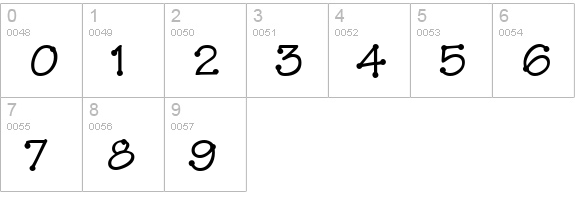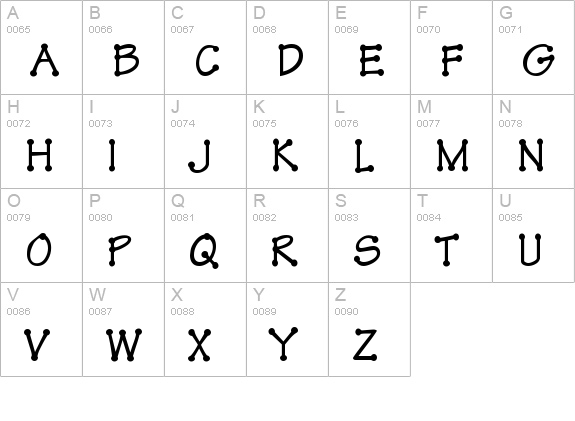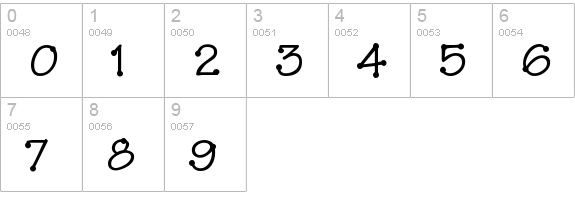
TinkerToy Heavy Font Details
TinkerToy Heavy is a heavy, high-impact variant in the TinkerToy typeface family \xE2\x80\x94 well suited to high-impact headlines, posters, and display advertising.
Introducing TinkerToy Heavy font, a bold and dynamic typeface that exudes strength and creativity. This impressive font is sure to catch attention with its robust and sturdy letterforms, making it perfect for eye-catching headlines, logos, posters, and more. With its heavy weight and sleek design, TinkerToy Heavy font commands attention and adds a touch of modernity to any project. Whether you're designing a magazine cover or creating a bold statement on social media, this font will make your message stand out from the crowd. But what sets TinkerToy Heavy font apart is not just its striking appearance, but also its accessibility. We believe that creativity should be freely expressed, which is why TinkerToy Heavy font is available for download, completely free of charge, at FontsMarket.com. This means that you can easily access and incorporate this stunning font into your designs without any limitations. So why wait? Download TinkerToy Heavy font today and unleash your creativity with this versatile and impactful typeface. Whether you're a professional designer or a passionate hobbyist, this font will elevate your projects to new heights. Take advantage of its bold presence and make a lasting impression with TinkerToy Heavy font.